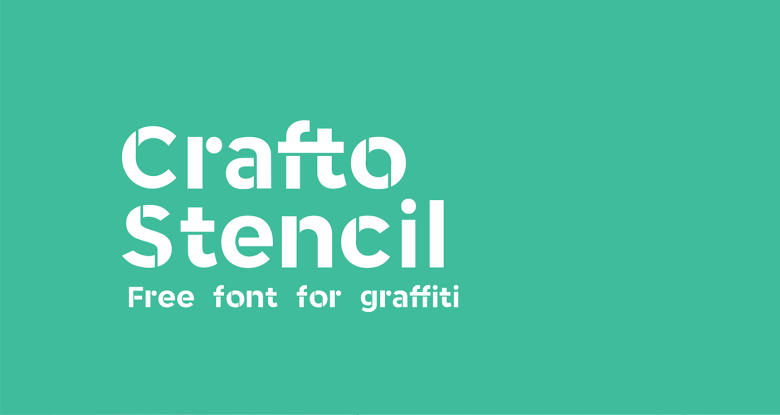
Crafto Stencil Typeface
Continue to be a free font for graffiti. You will feel surprised about this typeface, download and enjoy. Introducing Crafto Stencil! It is designed and shared by Athang Samant. It would be a perfect choice to design logos, posters, billboards, printable papers, magazine covers, book, t-shirt, and many more.